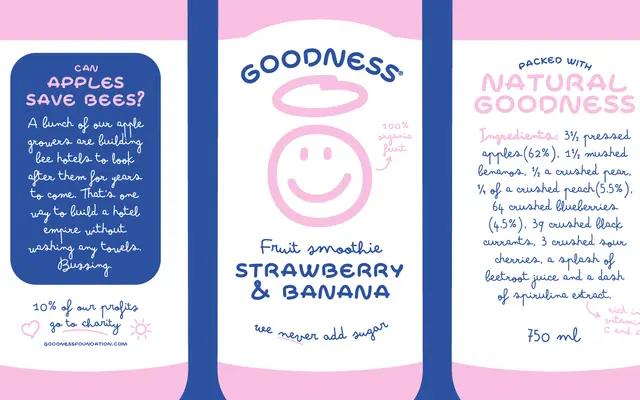
Bimbo Pro
A monoline handwritten script by Francesco Canovaro, evolved from the original 2018 Bimbo family with added uppercase styles, variable font support and expanded Greek and Cyrillic coverage across 211 languages.
Originally derived from the Arsenale White typeface created with Italian illustrator Jonathan Calugi, Bimbo Pro extends the earlier Bimbo family with six pen-weight variants ranging from Ballpoint to Jumbo, each available in a standard and a dripping style. A variable font is included with the full family package. The monoline structure and open counters keep it legible at smaller sizes, making it workable beyond logo and title use for handwritten notes and informal typographic compositions.
Bimbo Pro is a monoline script typeface with handwritten characteristics, drawing from the script tradition while incorporating display-oriented, hand-drawn qualities across its multiple weight variants.